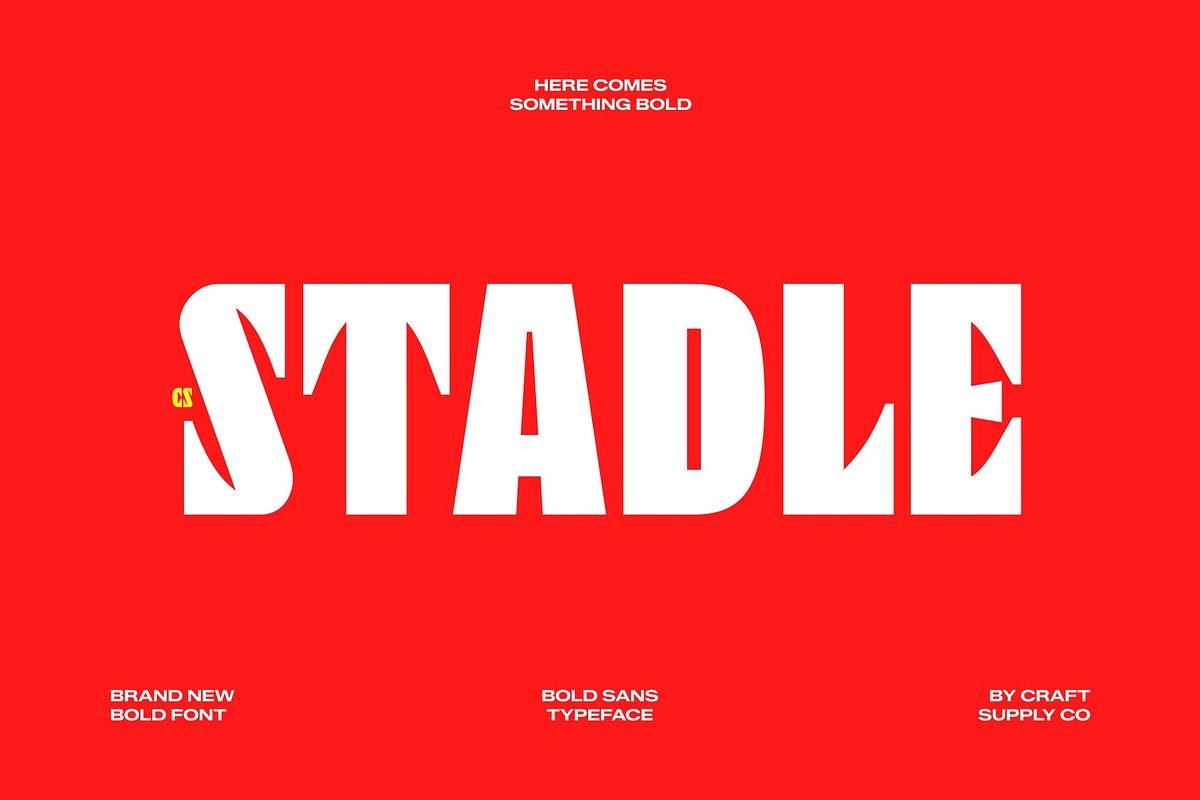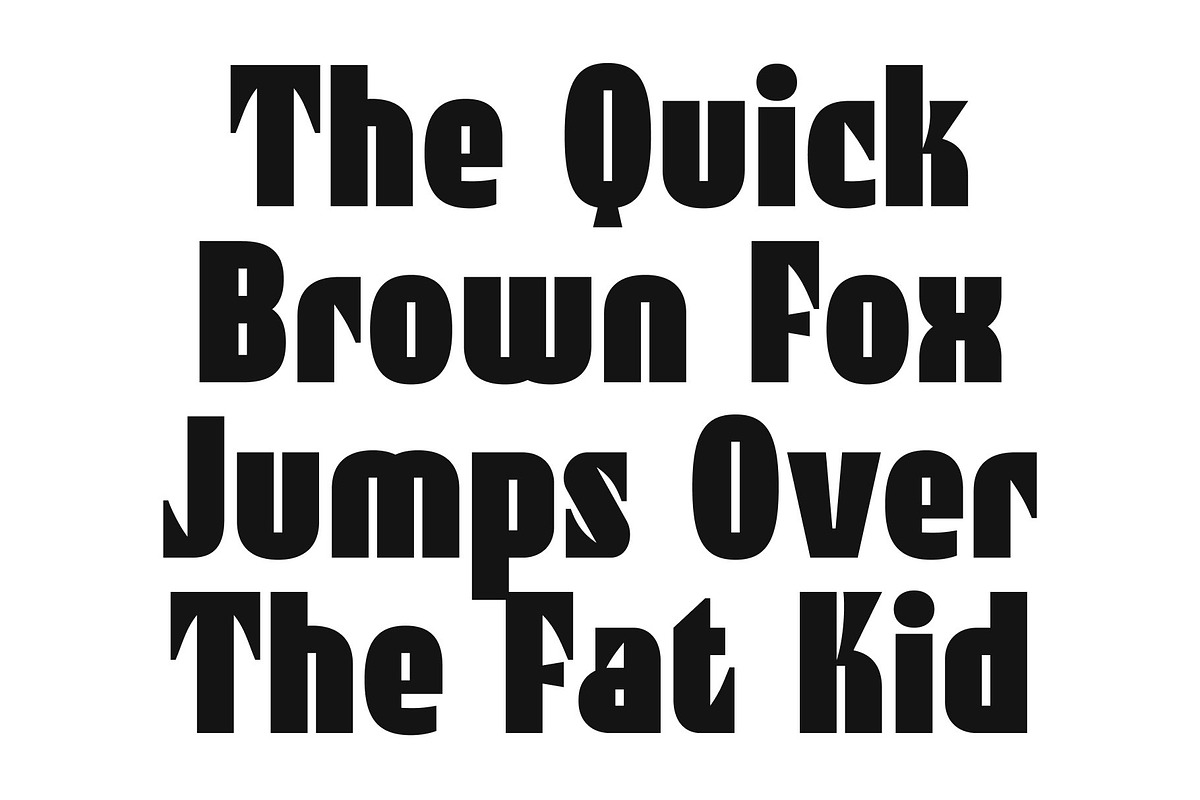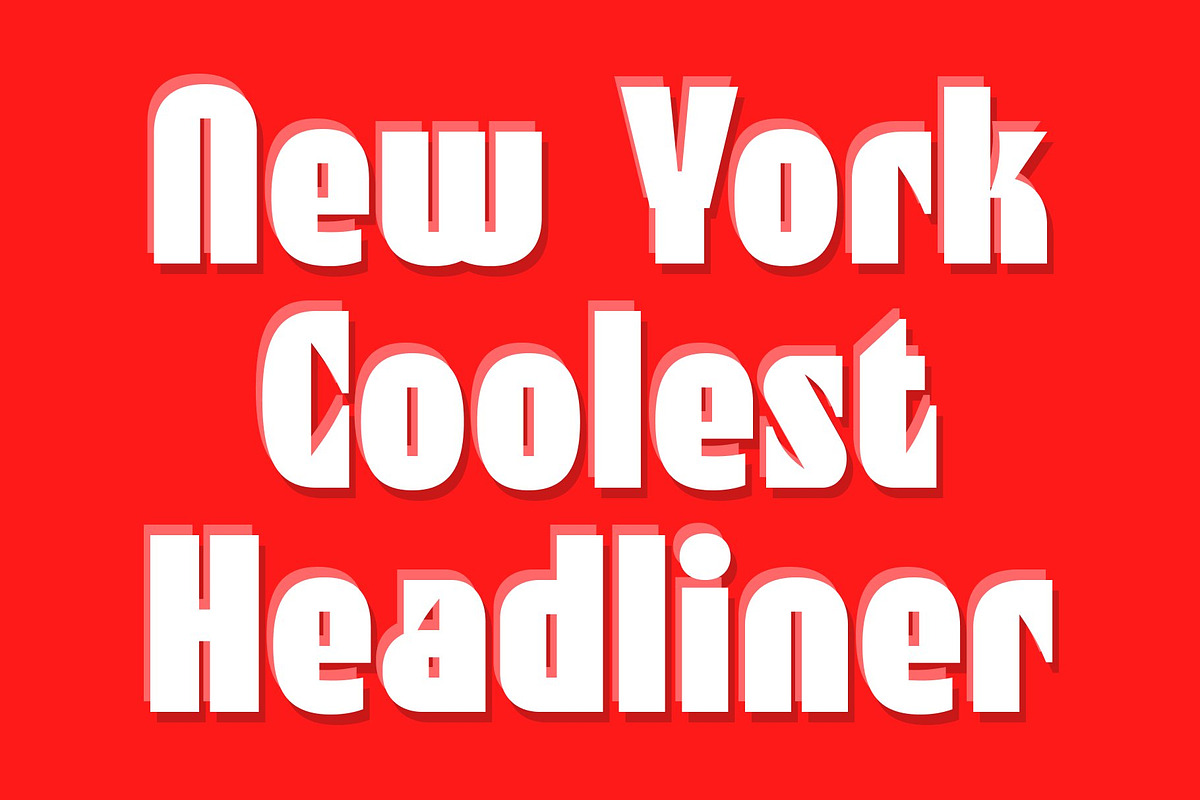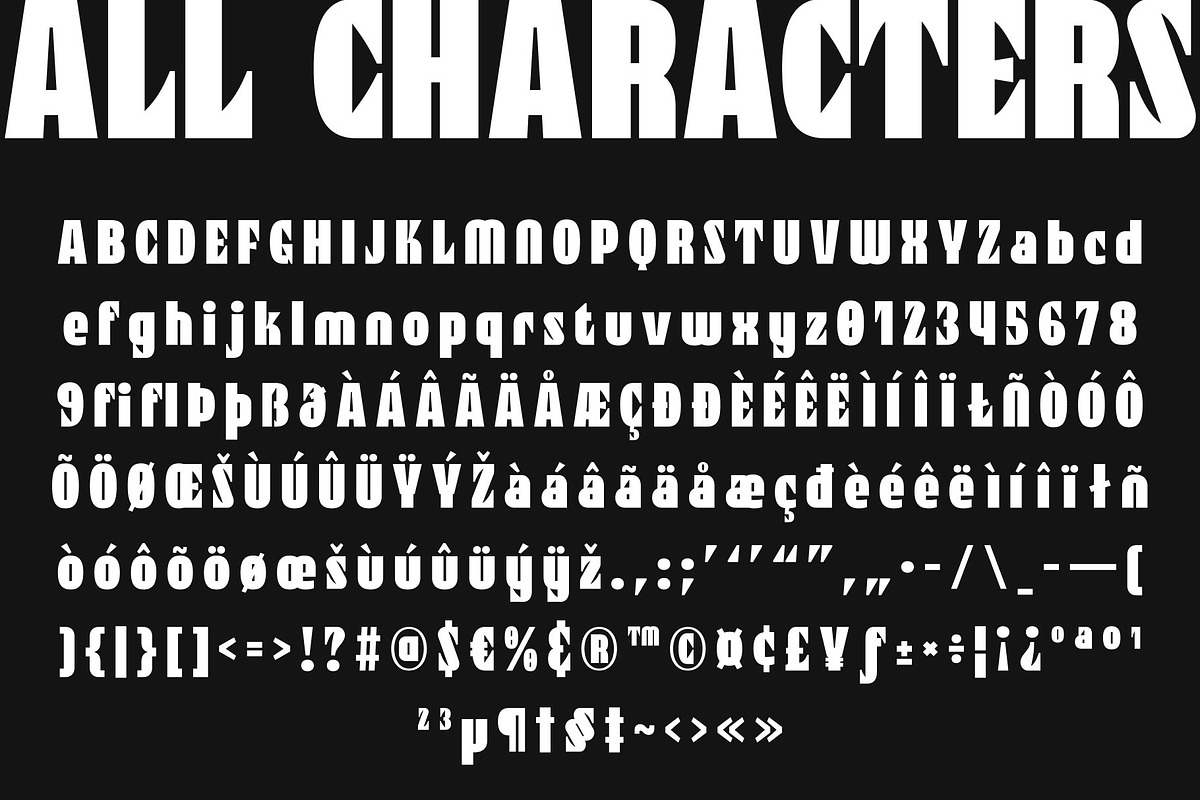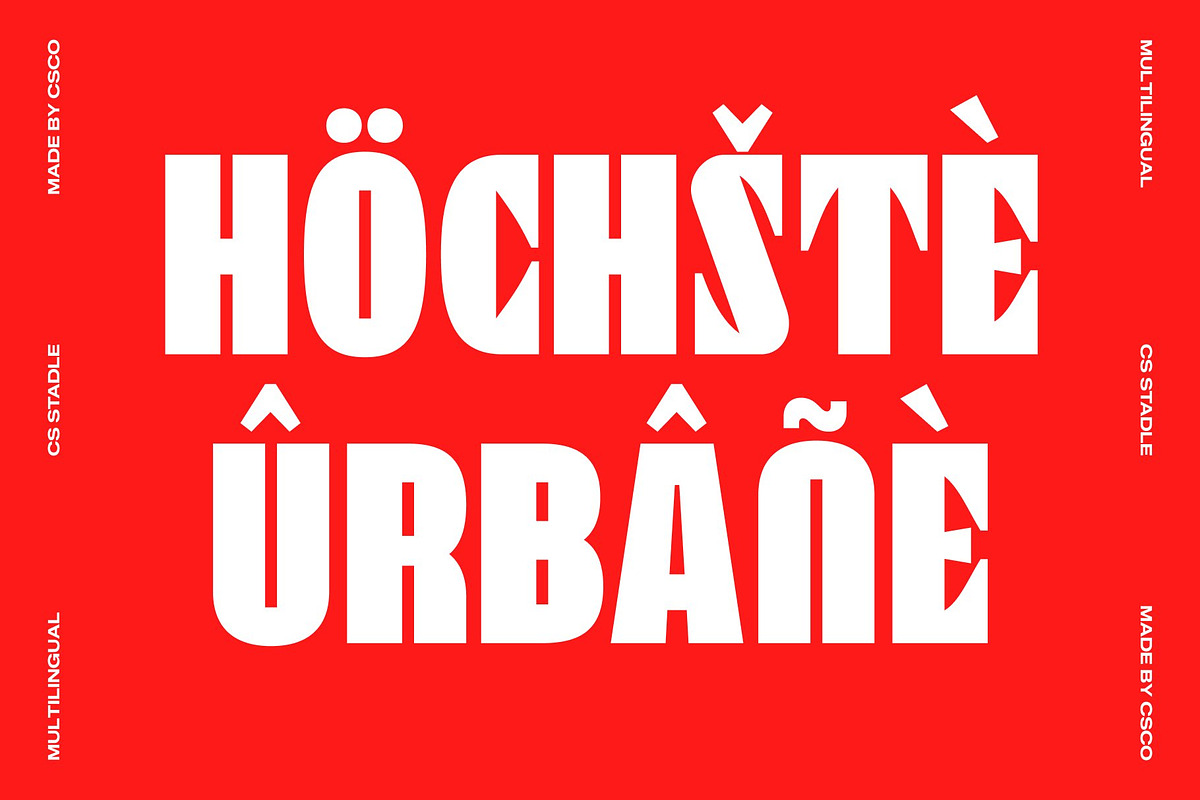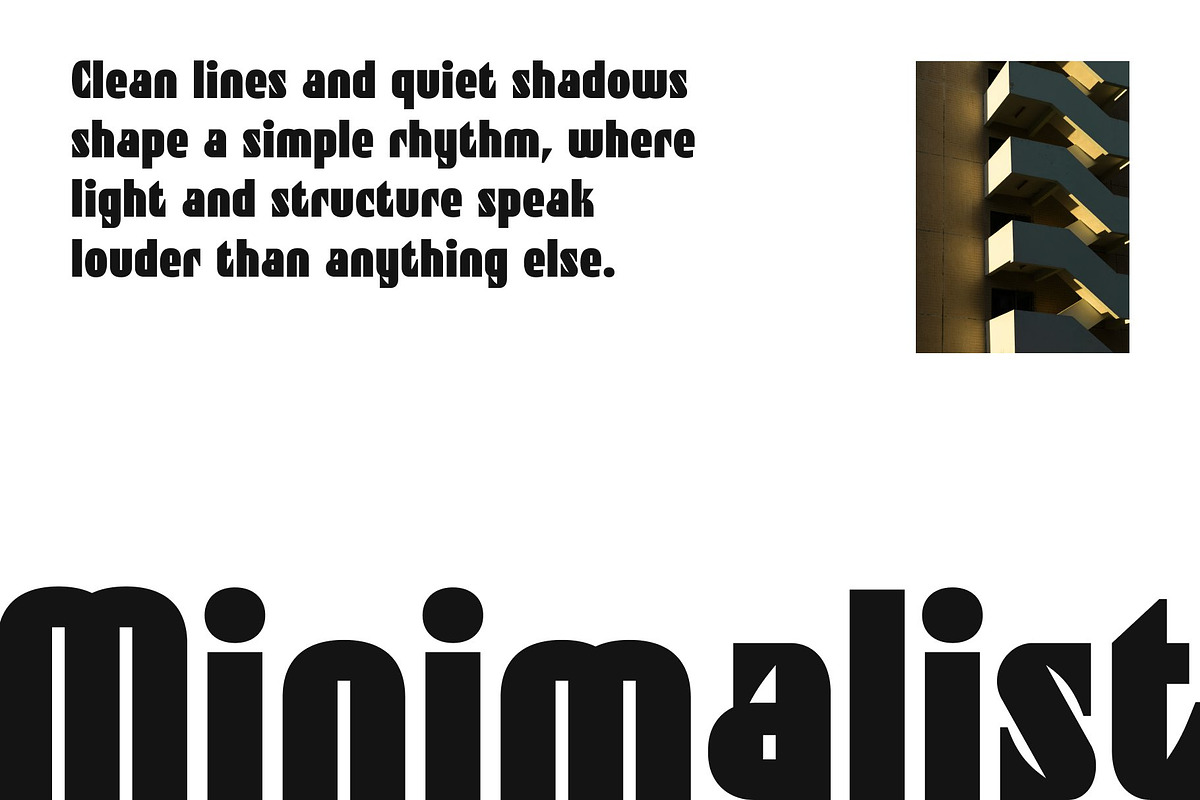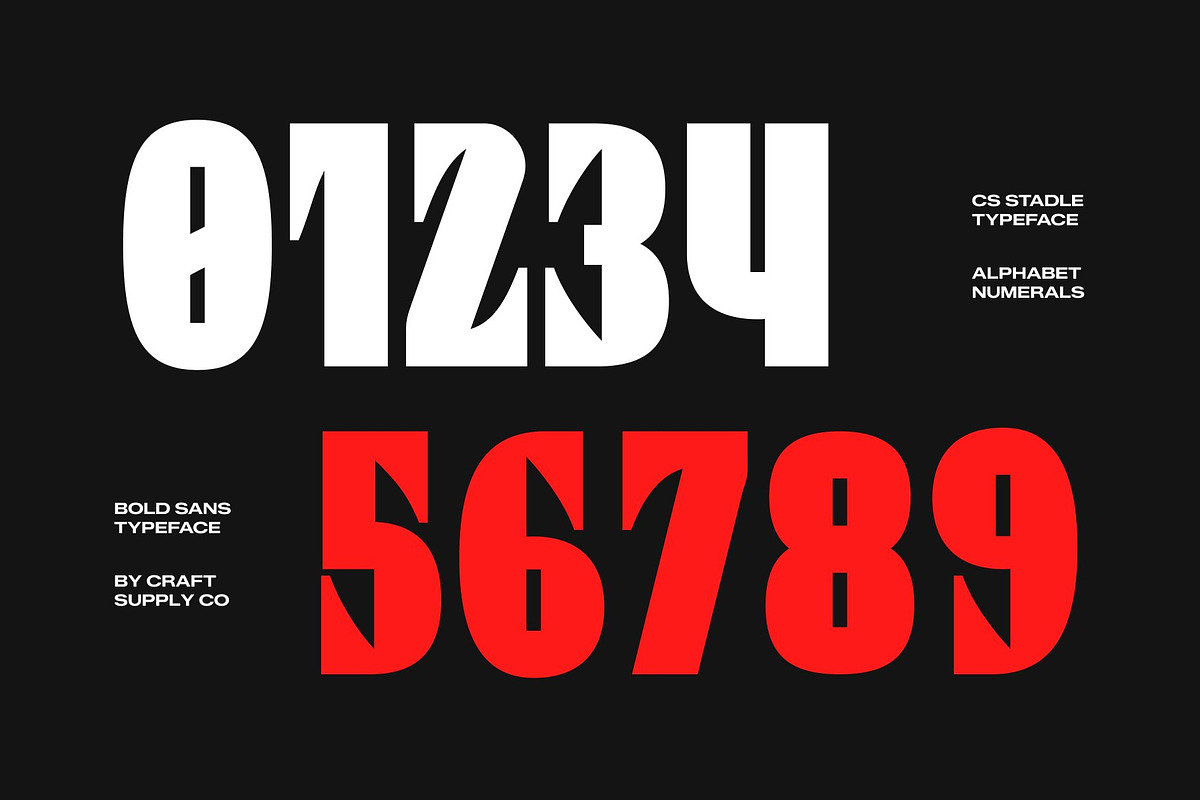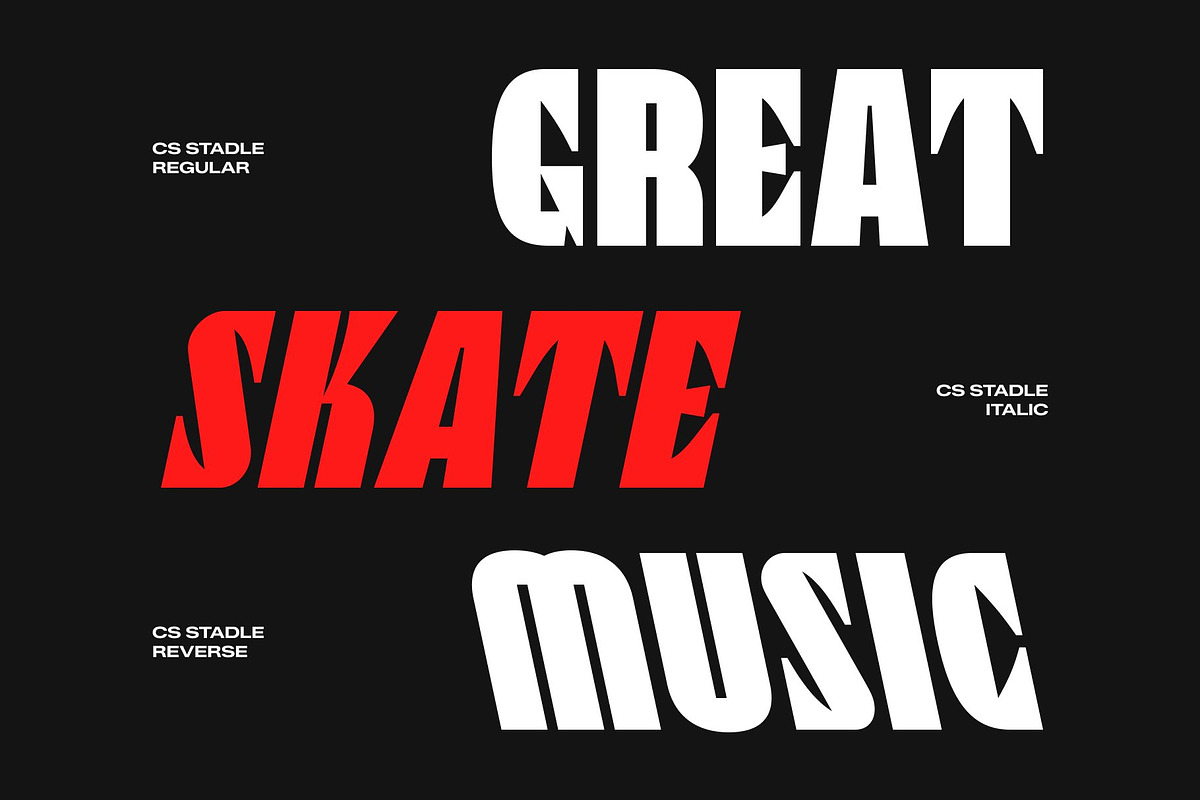
CS Stadle – Bold Sans Serif
CS Stadle – Bold Sans Serif with Sharp Contemporary Edge
Bold Sans Serif with Strong Modern Character This is a bold sans serif font designed to make a powerful statement through its contemporary style and confident structure. Featuring strong shapes and sharp angles, this typeface delivers a striking visual presence that feels modern, energetic, and unconventional. It is crafted for designers who want typography that stands out with strength and personality.
Sharp Angles with Dynamic Impact The defining feature of this font lies in its angular letterforms and bold construction. These sharp details create a sense of movement and intensity, giving the font a distinctive and commanding appearance. The combination of geometric precision and expressive styling makes every word feel impactful and memorable.
Contemporary Style with Unconventional Energy This font blends modern sans serif clarity with a lively and unconventional attitude. Its strong visual rhythm and unique character bring excitement to compositions, making it ideal for projects that demand attention and originality. The result is a typeface that feels bold, fresh, and creatively driven.
Perfect for Headlines, Posters, and Branding From powerful headlines and eye-catching posters to branding systems and creative campaigns, this font offers a versatile typographic solution. Its combination of bold forms, sharp angles, and contemporary energy ensures your designs feel distinctive, confident, and visually compelling. Whether used in large display settings or strong brand identities, this font delivers maximum impact with modern style.
CS Stadle Regular
CS Stadle Italic
CS Stadle Reverse Italic